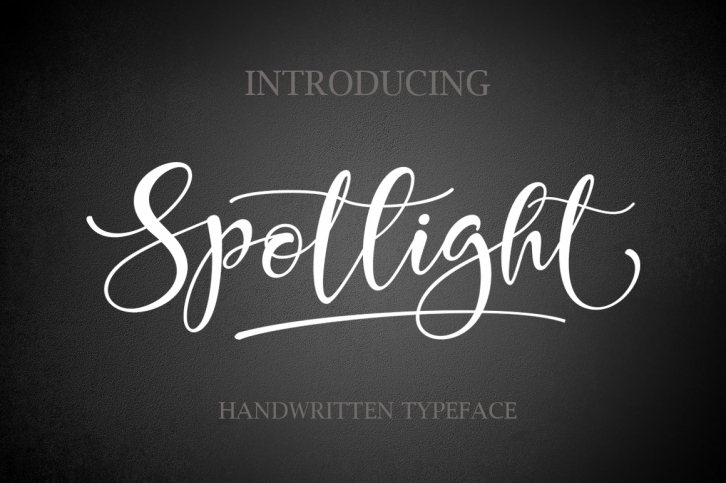
Spotlight is a beautiful font that was designed by Byuly Ayika. It's a great choice for designers and creatives who need such a font. It was released on February 28, 2017 and the file size is 5.93 MB. Spotlight may give a more youthful, expressive and casual look to your project. It is a very beautiful, refined, elegant, and high-quality font.